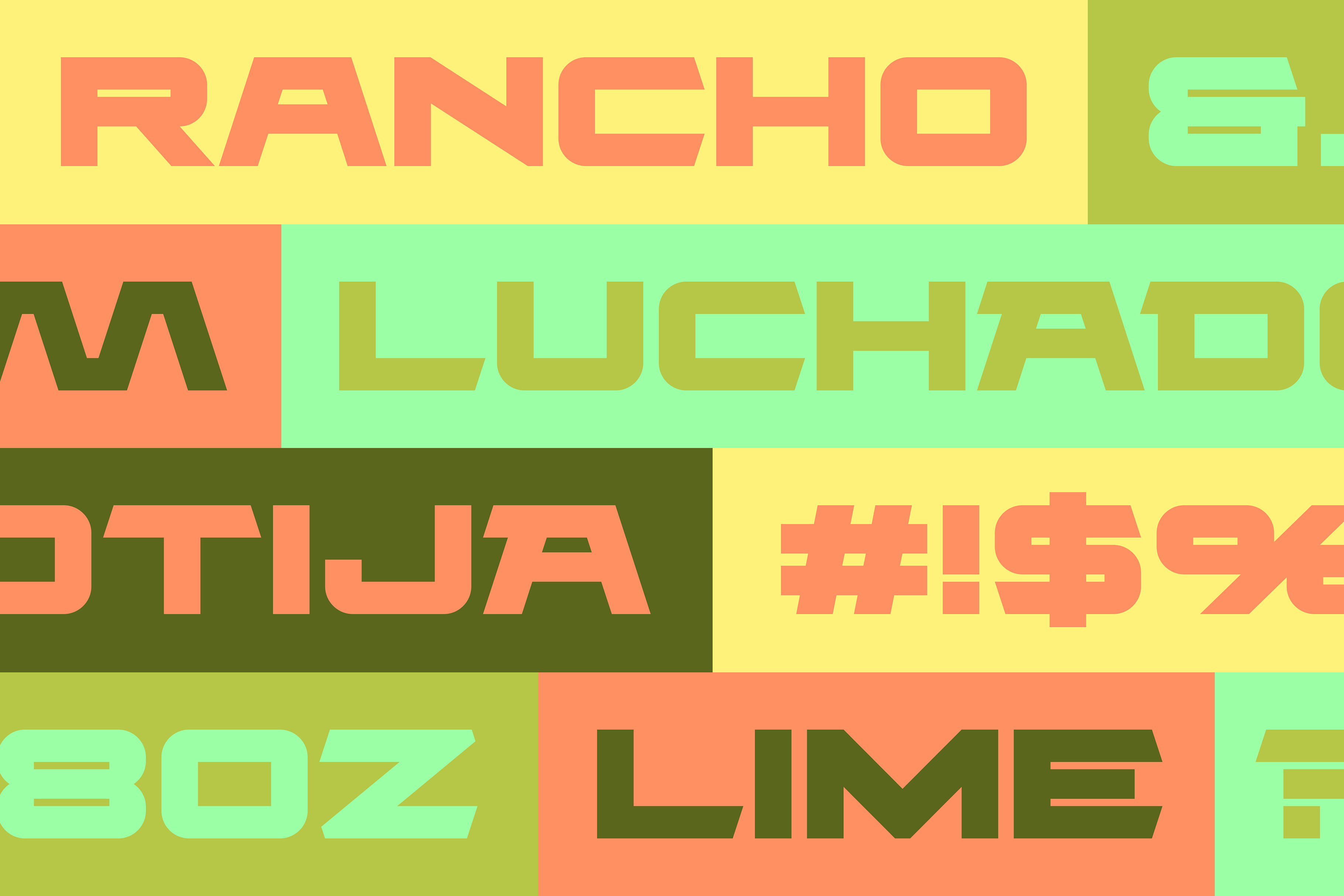
RANCHO Font
An homage to Southern California taco joints from decades past, Rancho is a sturdy, wide, sans serif font with the occasional angled detail. Made up of 84 glyphs including uppercase, alternate uppercase, numbers, punctuation, and special characters.